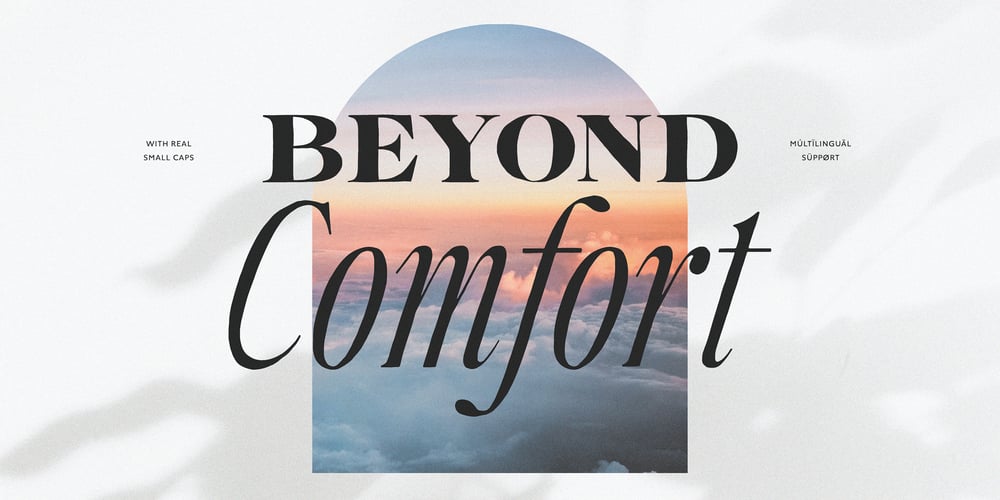
Beyond Comfort
Beyond Comfort font
Beyond Comfort Font Family was designed by Tom Chalky and published by Tom Chalky. Beyond Comfort contains 2 styles and family package options. Introducing Beyond Comfort – A classy and stylish font duo inspired by 80’s editorial type. At first glance, they look pixel perfect, but on further inspection, you’ll notice perfect imperfections, revealing that the fonts are in fact entirely hand-drawn; As all of my fonts are, adding to the overall character of the duo.